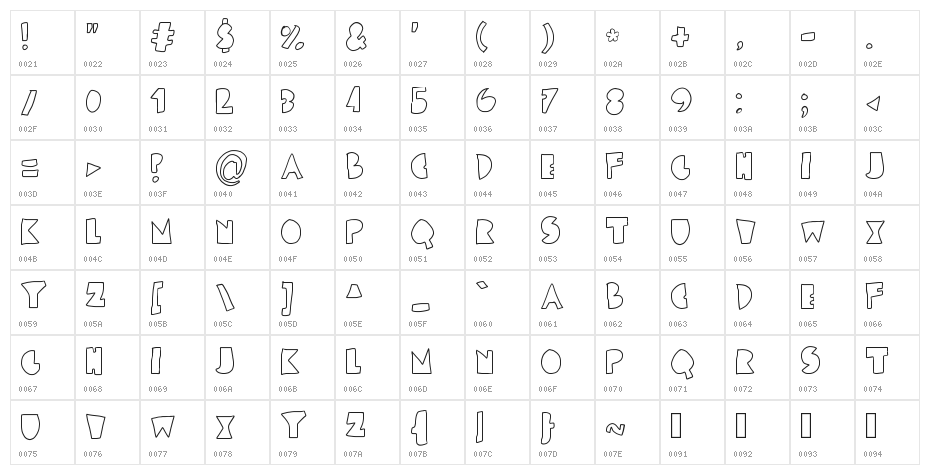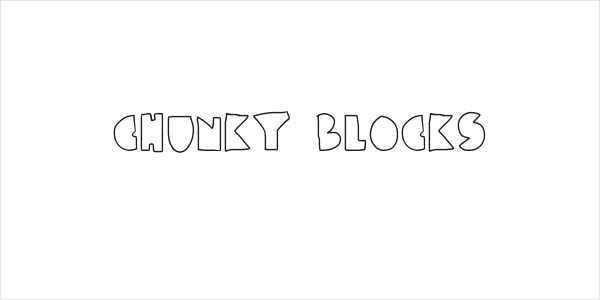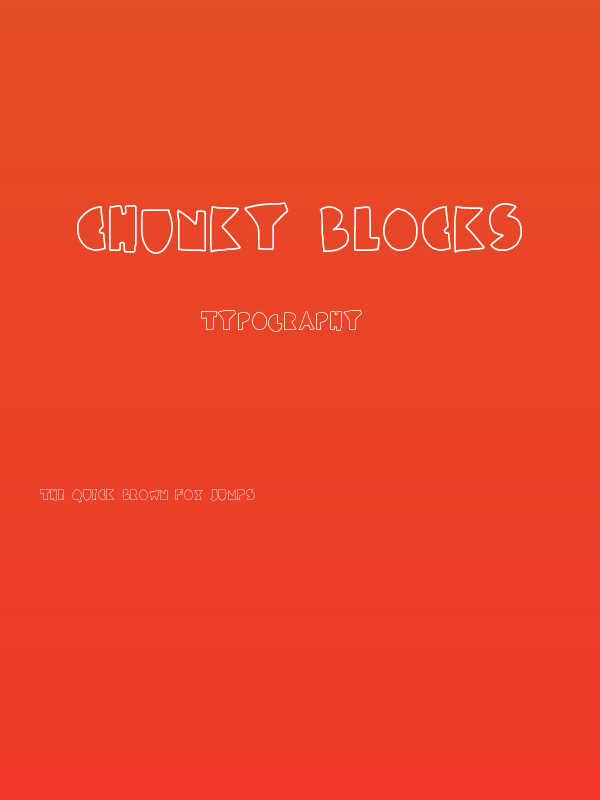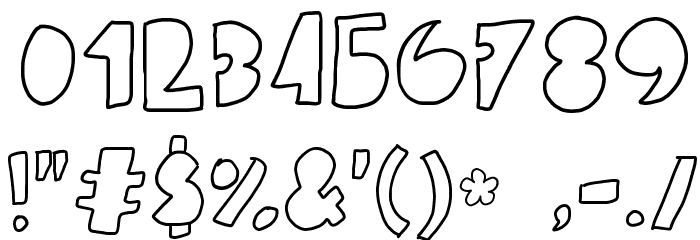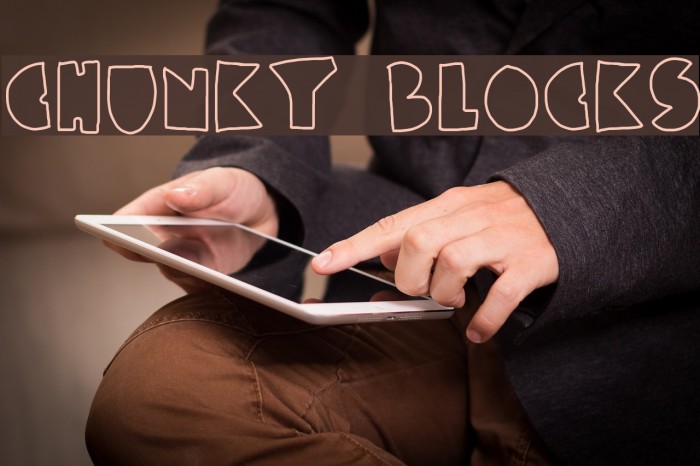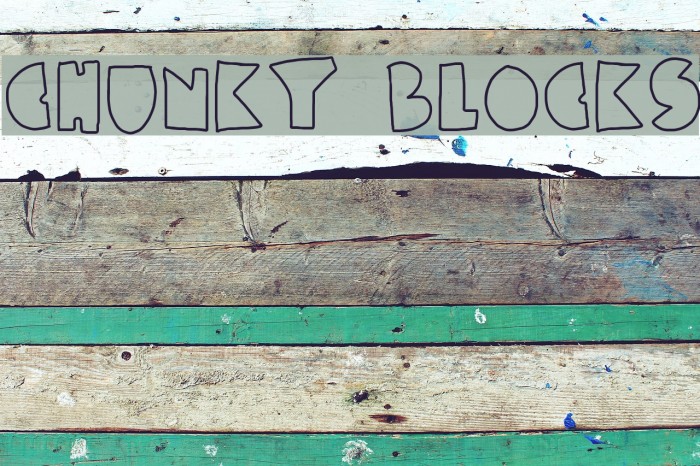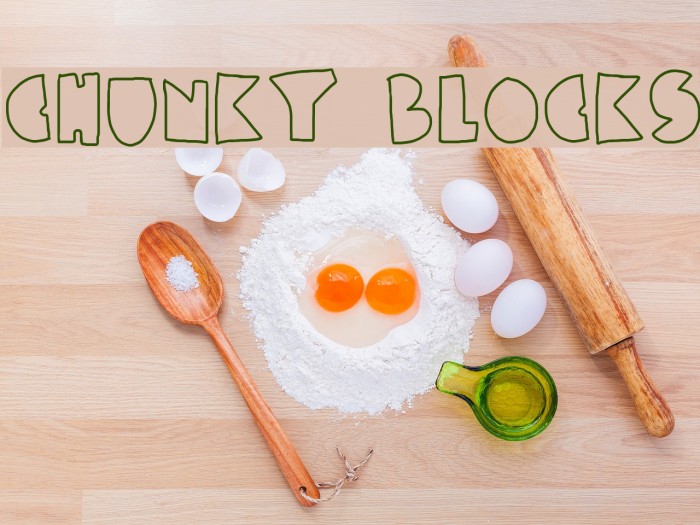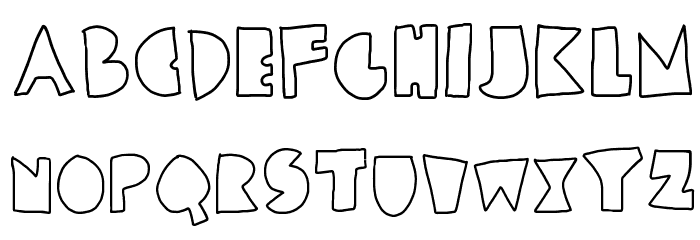
chunky blocks Font
chunky blocks Description
This font features a playful and bold design, characterized by its chunky, block-like letters with uneven edges and a hand-drawn feel. The uppercase and lowercase letters maintain a consistent style, with exaggerated curves and angles that give it a whimsical appearance. The numbers and special characters follow the same aesthetic, ensuring a cohesive look across all text elements. Its unique style makes it stand out, perfect for projects that require a fun and informal touch.
| Proposed Projects | Ideal for children's books, comic strips, playful branding, posters, and greeting cards. |